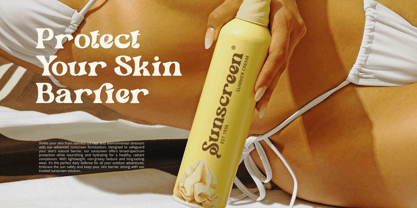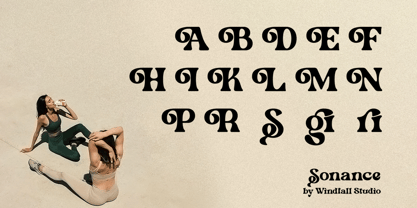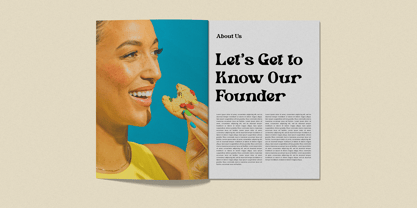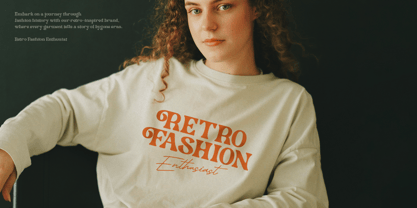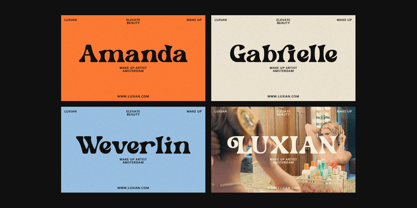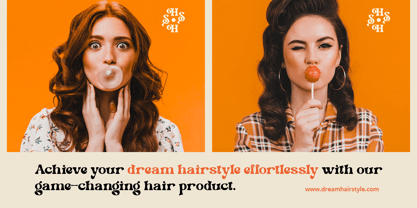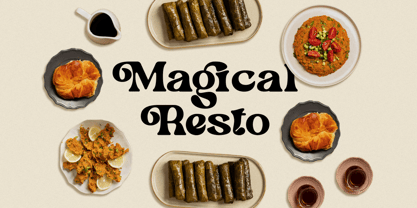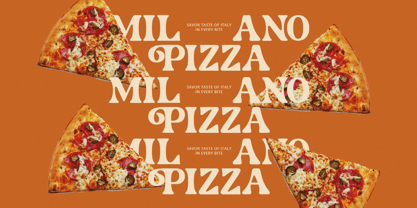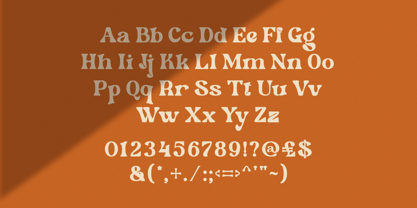
Sonance
by Windfall Studio
The Sonance Font Family was designed by Anggia Putri Premitasari and published by Windfall Studio. Sonance contains 1 styles. More about this family
Introducing Sonance, a bold and stylish retro serif font designed by Windfall Studio. Sonance brings the classic vibes of the past with a modern twist, making it perfect for various design projects that require a touch of nostalgia and elegance. This typeface is meticulously crafted to provide versatility and beauty, making your designs stand out effortlessly.
Designers: Anggia Putri Premitasari
Foundry: Windfall Studio